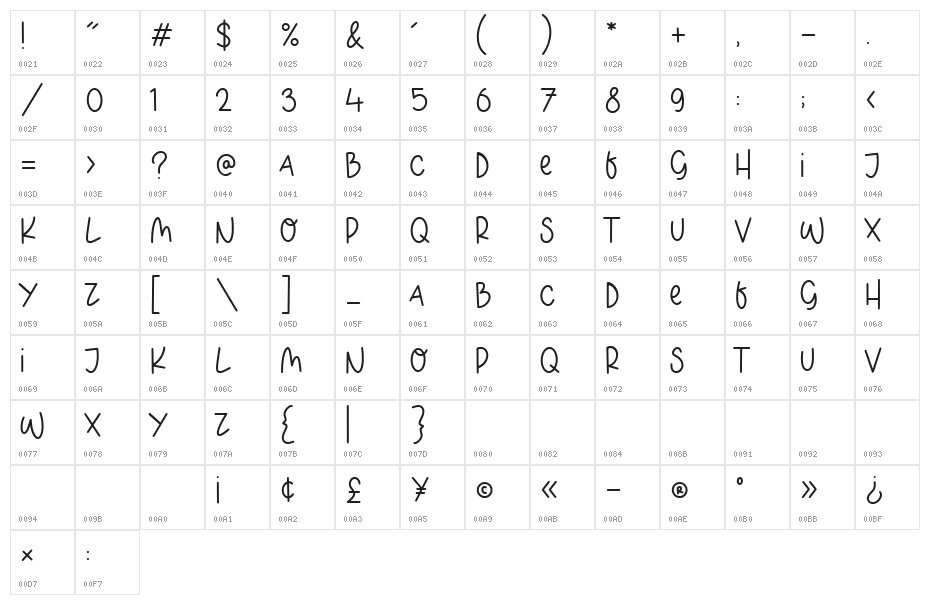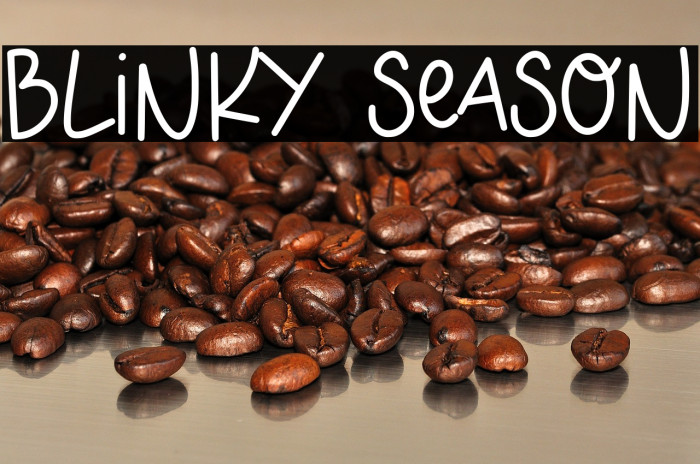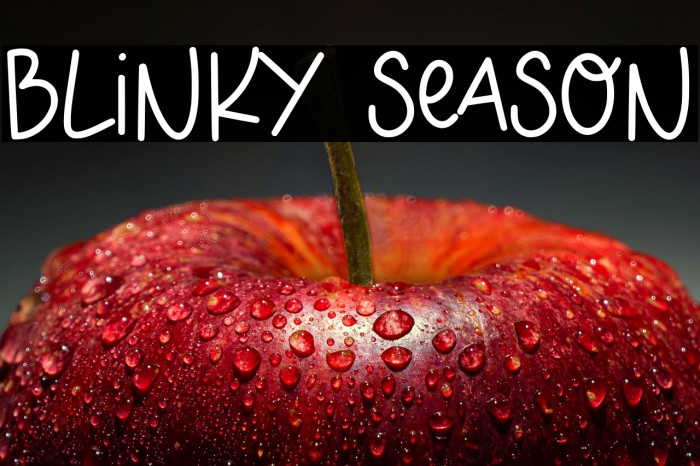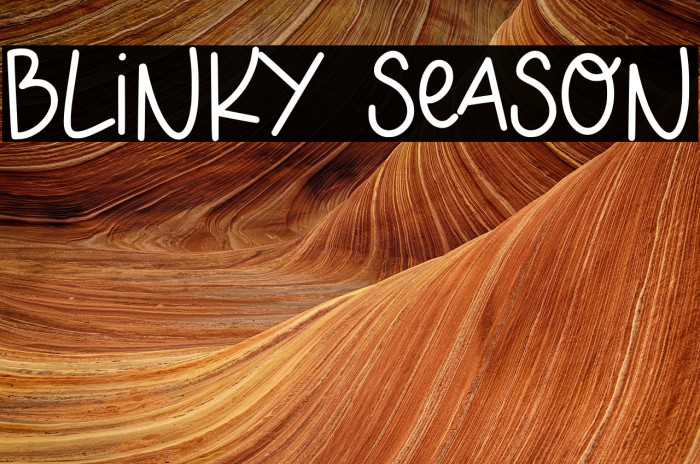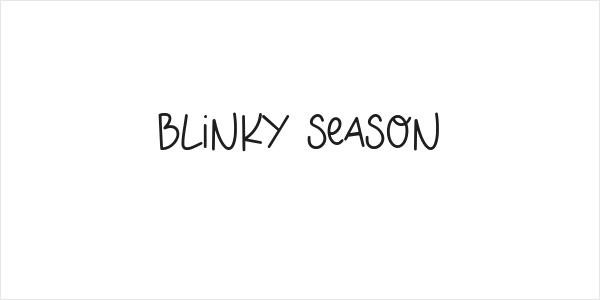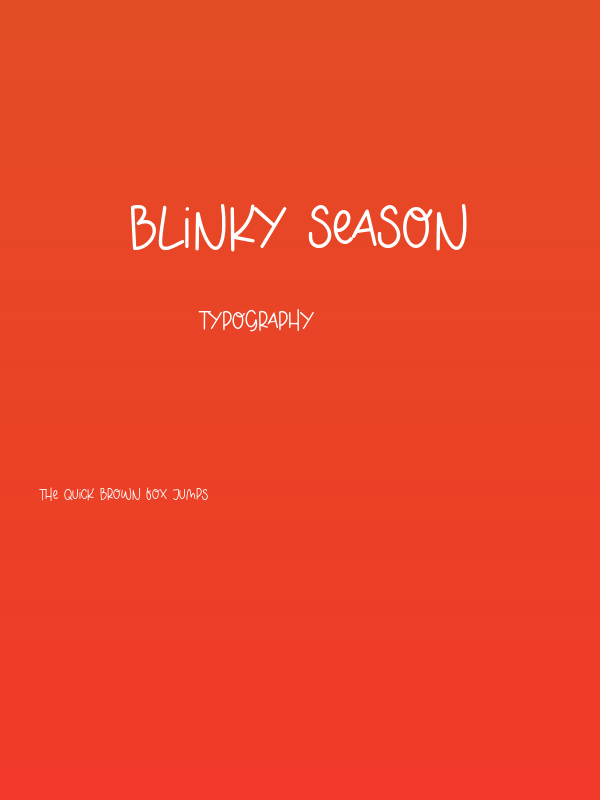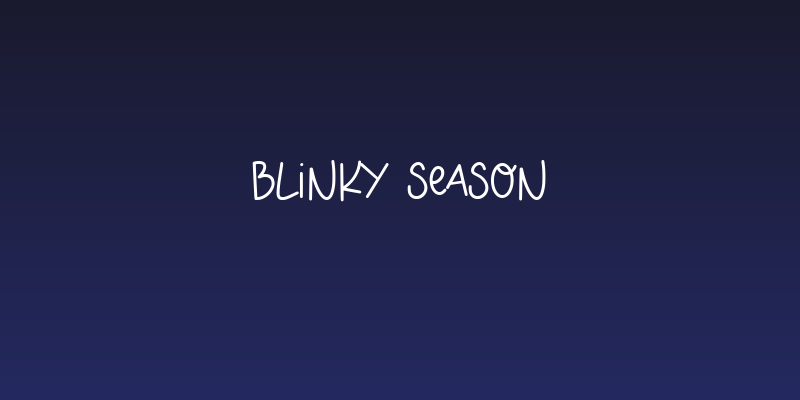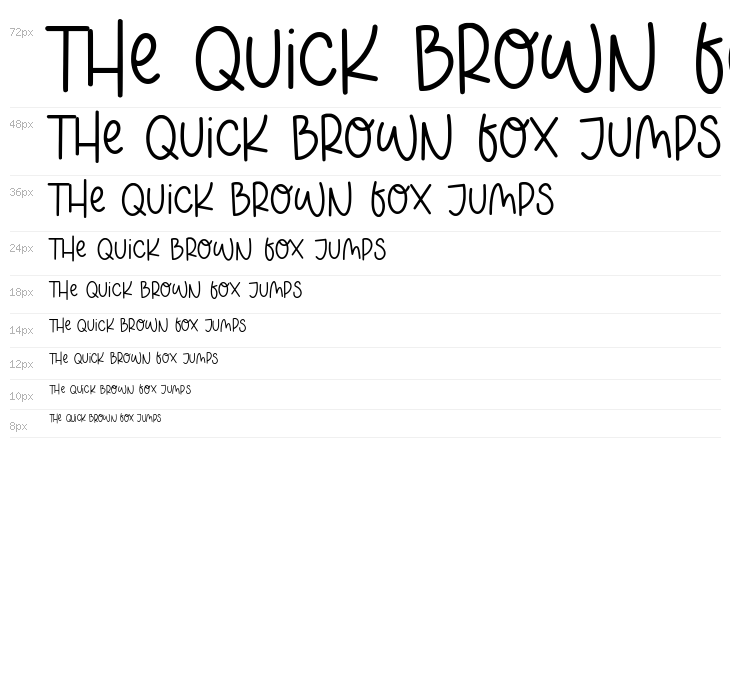
BLINKY SEASON Font
BLINKY SEASON Description
This playful and casual font features a handwritten style with a smooth, flowing appearance. The letters are slightly irregular, giving it a friendly and approachable feel. The uppercase and lowercase characters maintain a consistent style, with rounded edges and a slight slant that adds to its informal charm. The numerals and special characters are designed to match the overall aesthetic, making it versatile for various uses. The font's simplicity and readability make it suitable for both digital and print media, where a personal touch is desired.
| Use Case | Logos, Headlines, Informal Text |
| Proposed Projects | Ideal for greeting cards, children's books, casual branding, and social media graphics. |